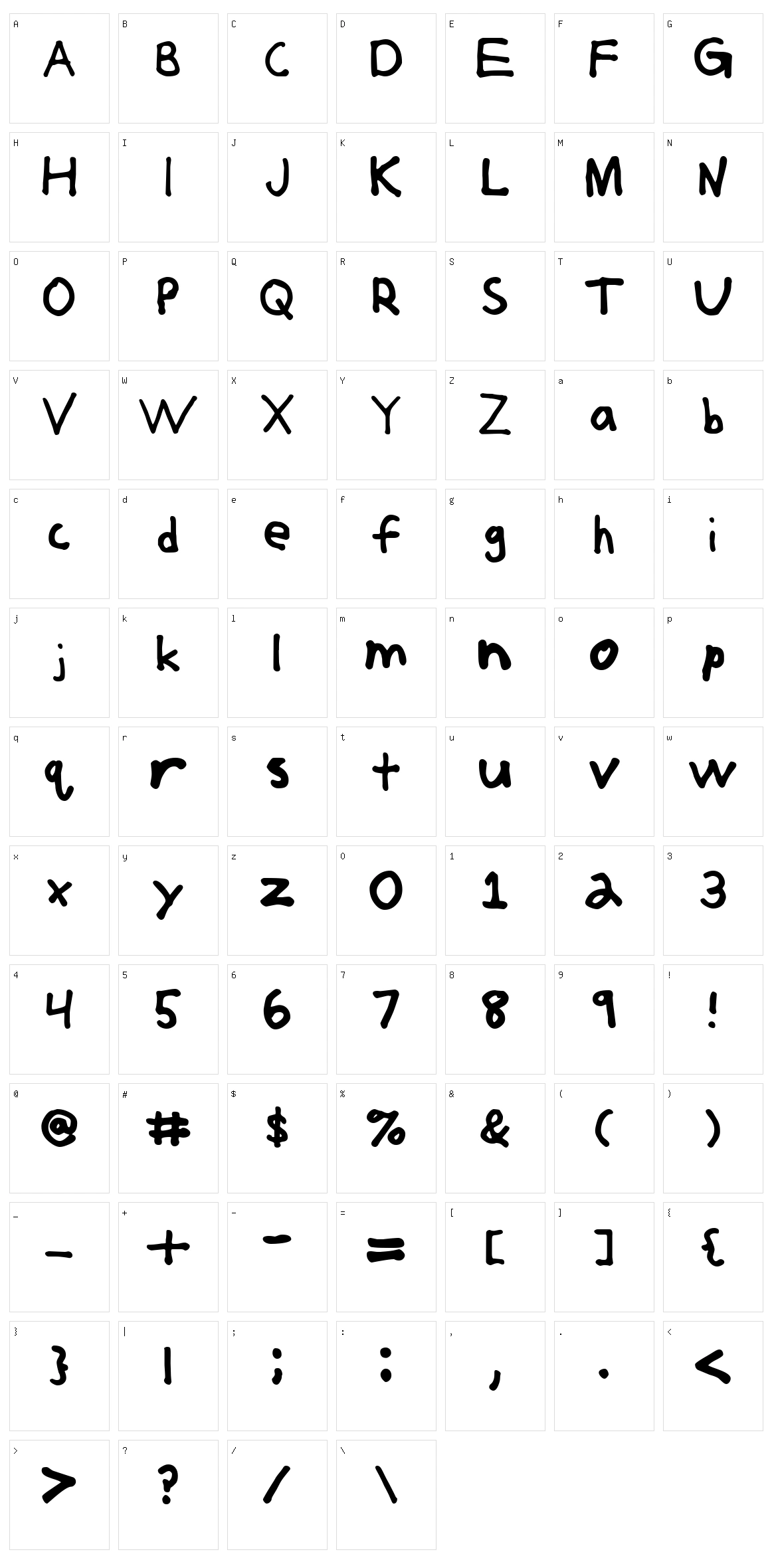
-Jerkoff Normal v3.0-
* Compiled over 7 exhaustingly boring days, somewhere between
December 31, 1997 and January 9, 1998. Revised February 18, 1998.
Re-kerned February 19, 1998.
* Revised twice in order to fix some extremely annoying problems. For
instance, the "O" was filled in. Soon, I hope to actually get all the
letters the same thickness. The kerning is done at this point.
* I had hoped to get this font done in a day. Underestimating, of
course, the numbing repetition this took. That and I didn't know what
the hell I was doing.
you're actually into lo-fi fonts. Not grunge, this isn't good enough
for that.